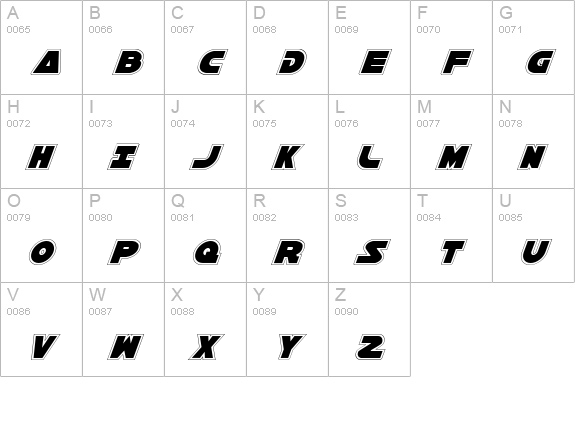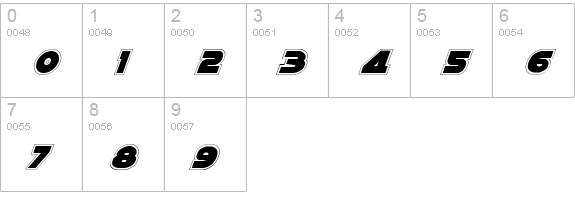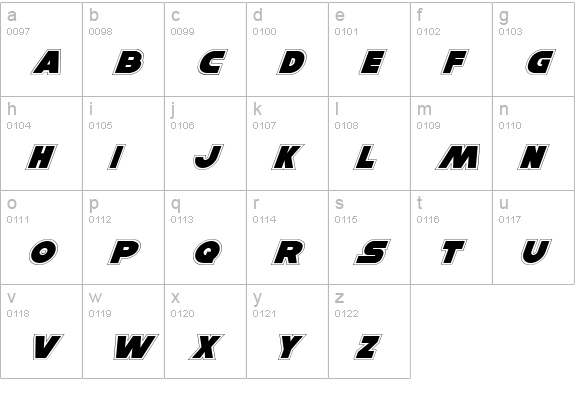
Han Solo Pro Italic Font Details
Han Solo Pro Italic is a distinctive, italic variant in the Han typeface family \xE2\x80\x94 well suited to design and typography projects.
Introducing Han Solo Pro Italic, a stylish and versatile font that adds a touch of sophistication to any design project. With its sleek and slanted letterforms, this font exudes a sense of modernity and elegance that is perfect for both digital and print applications. Han Solo Pro Italic is meticulously crafted with attention to detail, ensuring each letter is perfectly balanced for optimal legibility. The italicized nature of this font adds a subtle flair and a sense of movement, making it ideal for headlines, titles, and emphasis within paragraphs. But what sets Han Solo Pro Italic apart from the rest is its availability for free. Yes, you read that right! This font is freely available to download at FontsMarket.com. Whether you're a professional designer or an aspiring creator, Han Solo Pro Italic offers you the opportunity to elevate your projects without breaking the bank. So, why wait? Discover the power of Han Solo Pro Italic and take your designs to new heights. Download it now, free of charge, at FontsMarket.com and unleash your creativity like never before.